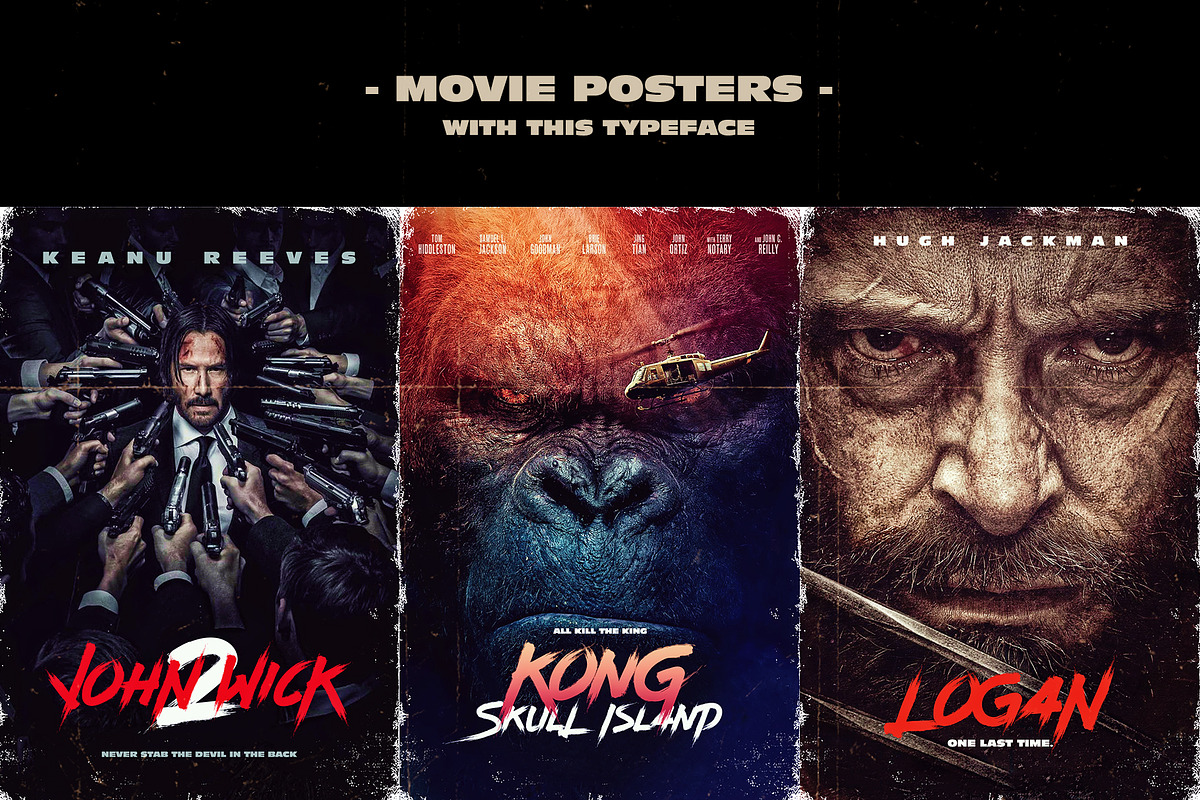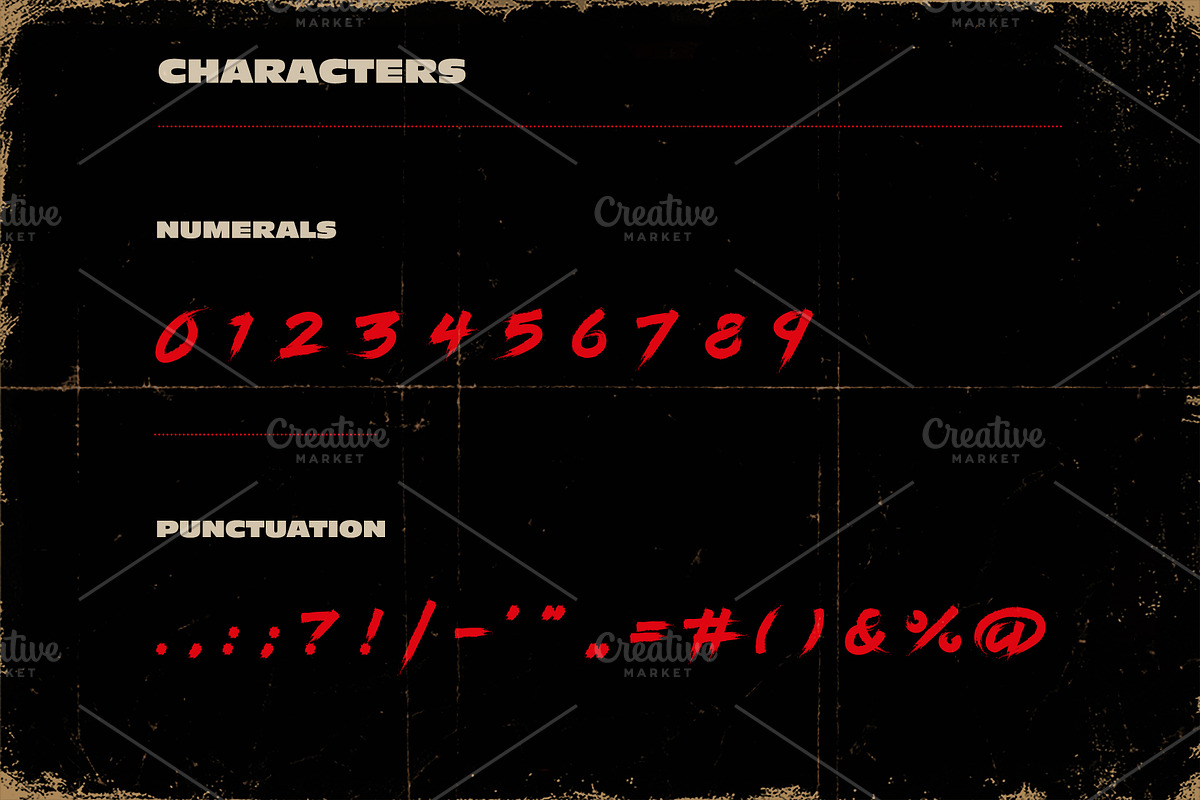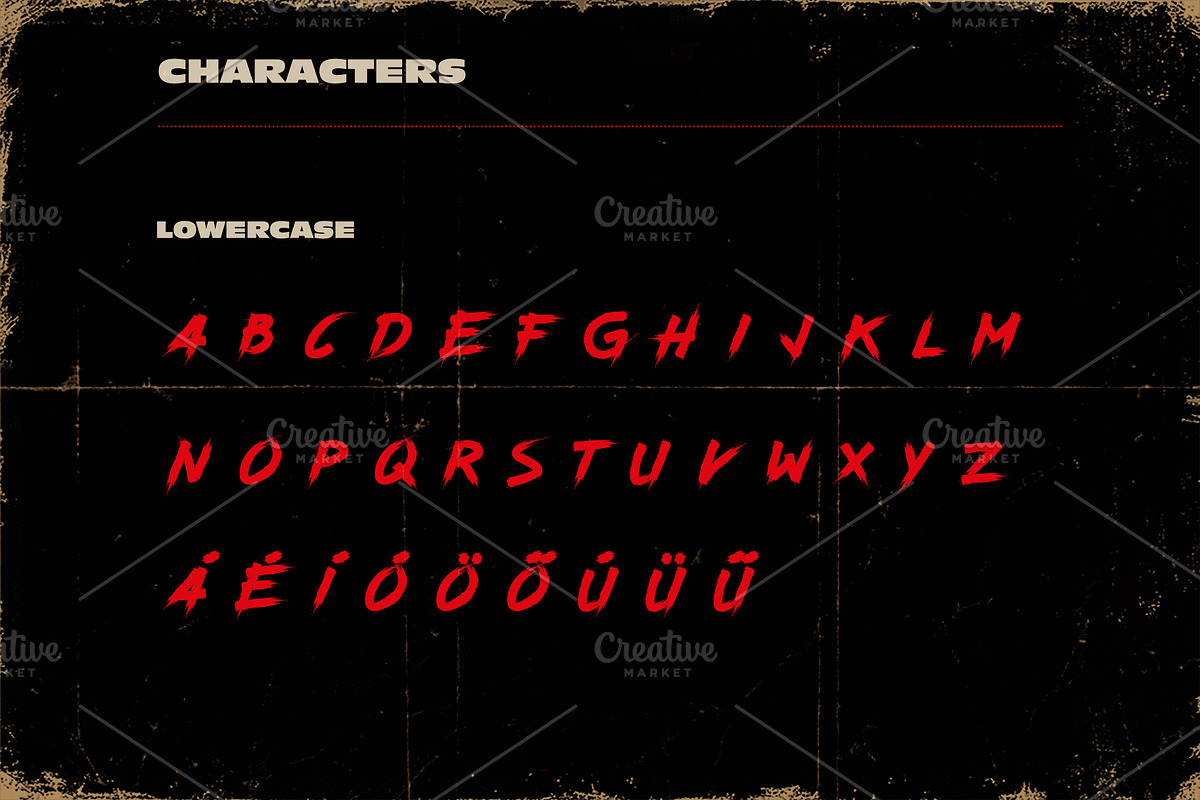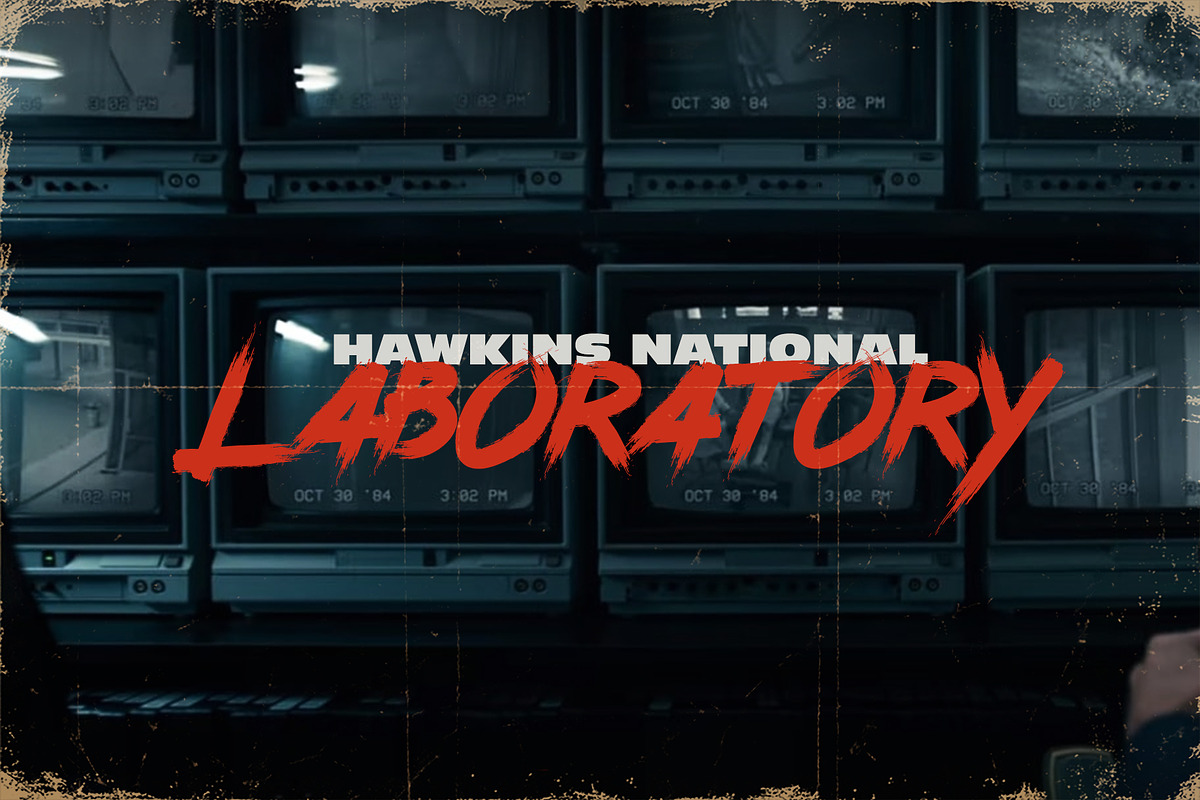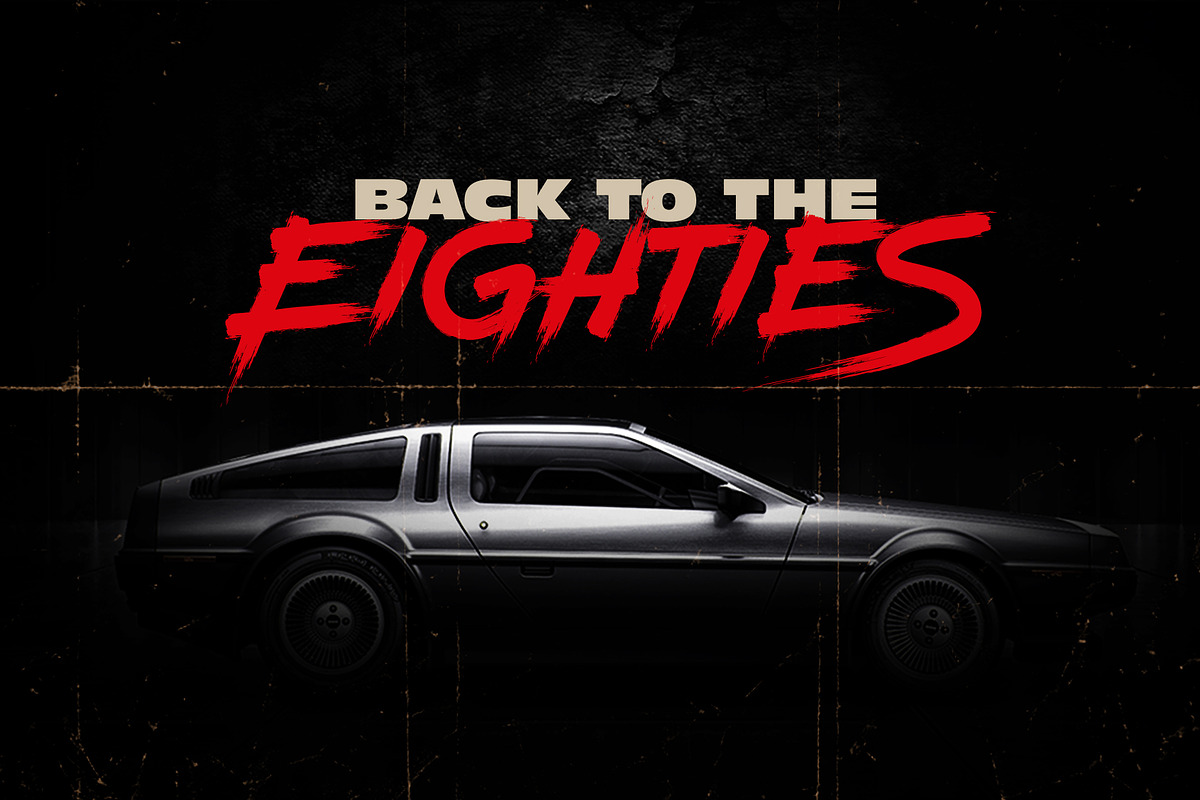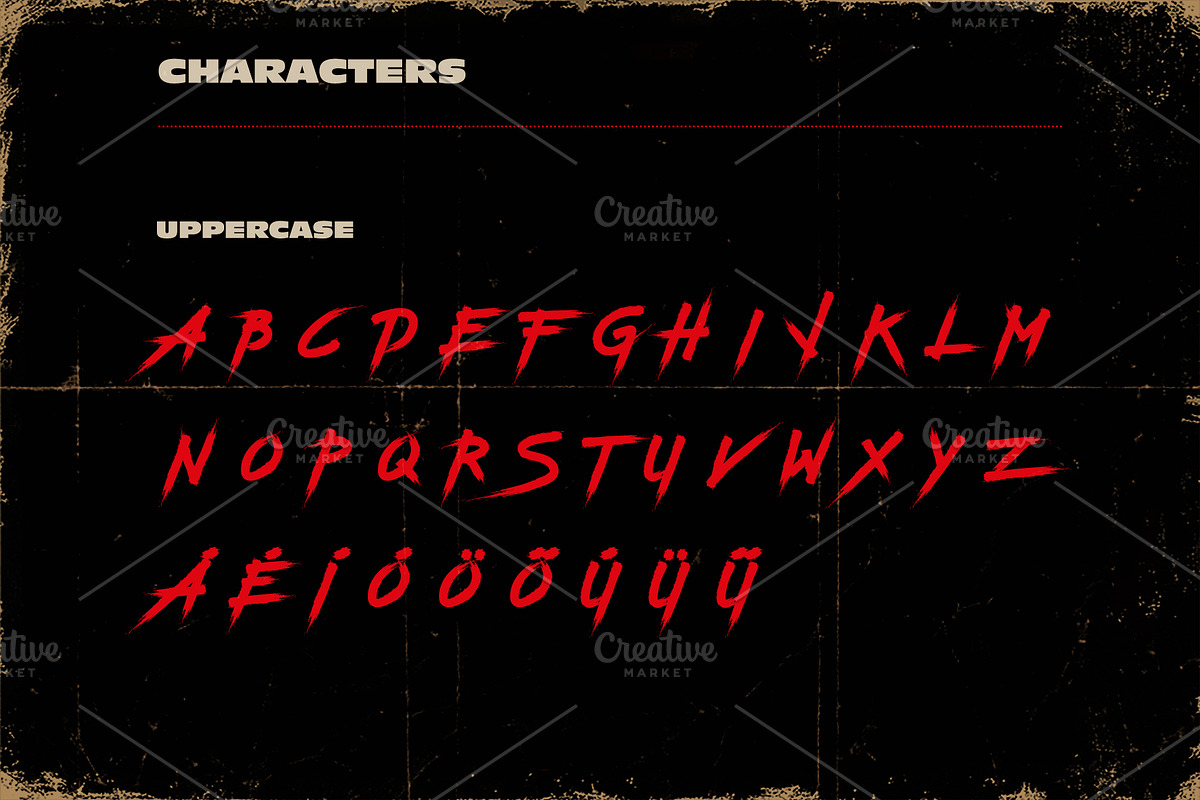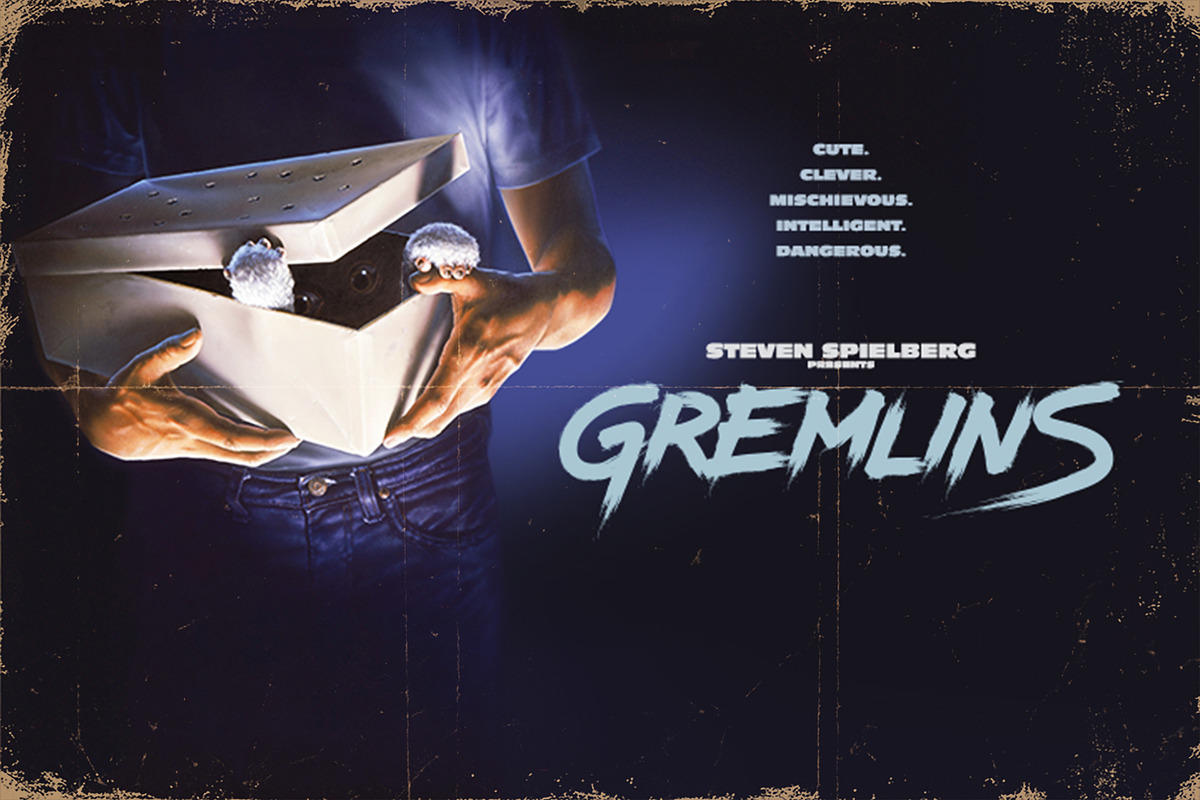
THE SONNYFIVE typeface
The Sonnyfive typeface
This is a brush font from the eighties. I specifically made it for horror movie posters, but it can be used for anything.
Here are some examples: John Wick, Kong - Skull Island, Logan, Gremlins, Poltergeist, Jaws.